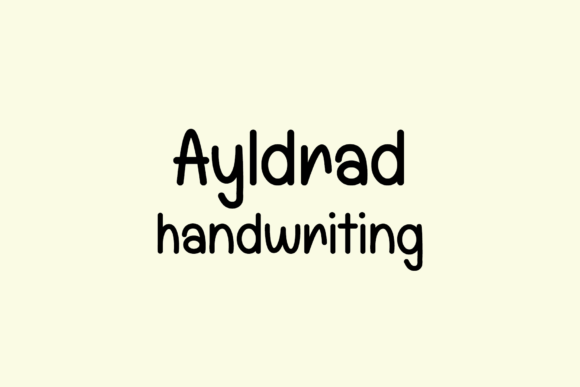
Enter the realm of delectable artistry with Ayldrad Font, a tantalizing treat for your creative appetite. This enchanting script font, meticulously crafted by Woracado, is a culinary masterpiece, ready to transform your designs into scrumptious visual feasts.
Picture your designs adorned with Ayldrad's playful strokes, a dance of characters that echoes the joy of a perfectly executed recipe. Its whimsical nature adds a dash of charm to logos, wedding invitations, and advertisements, turning ordinary words into mouthwatering morsels of visual delight.
Ayldrad's versatility is a chef's kiss to your creative endeavors. Be it print, magazines, or the vibrant world of digital media, this font serves as the perfect garnish, adding a touch of flavor to your visual creations. Its friendly curves and quirky personality will make your designs stand out like a Michelin-starred dish, leaving your audience hungry for more.
Indulge in the savory experience of Ayldrad Font, a font that nourishes your imagination and satisfies your creative cravings. With its delightful personality and endless possibilities, Ayldrad is the secret ingredient that will elevate your designs to new heights of flavor.